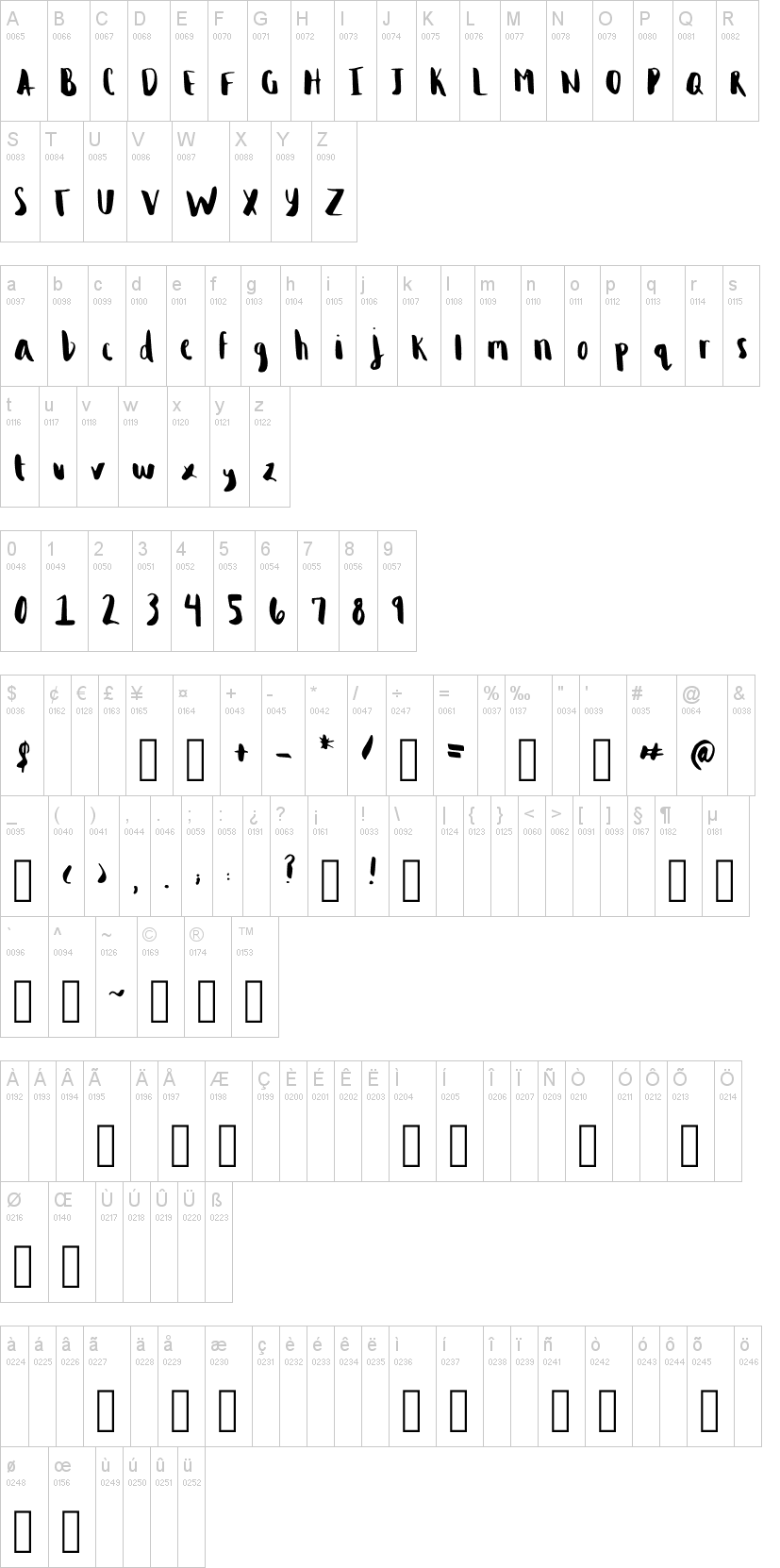
amish
Explore the Timeless Appeal of Amish Font
Amish Font, crafted by John Smith in 2022, embodies the rustic charm and character reflective of Pennsylvania Dutch heritage. Ideal for projects that require a vintage or handcrafted feel, this font is perfect for logos, signage, and decorative applications. With its unique letterforms and warm, inviting design, Amish Font brings a touch of nostalgia to modern design aesthetics.
The Inspiration Behind Amish Font
Inspired by the rich heritage and cultural aesthetics of the Amish community, the font design reflects traditional craftsmanship and a deep respect for simplicity. John Smith has meticulously crafted each character to encapsulate the essence of handmade art, making it a favorite among designers aiming for authenticity and originality.
Ideal Uses for Amish Font
Amish Font shines in various design contexts, particularly ideal for branding, rustic wedding invitations, home decor signage, and creative projects that celebrate cultural heritage. Its distinct style allows it to stand out, making it the perfect choice for anyone looking to evoke a sense of warmth and tradition in their work.